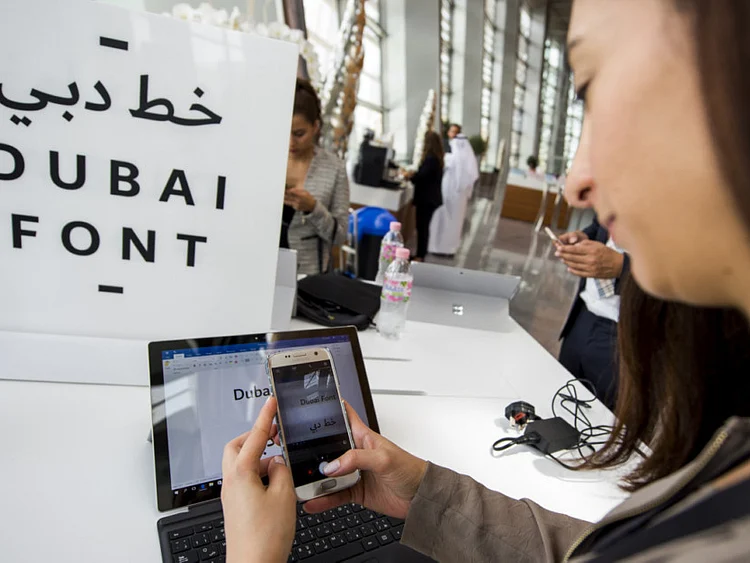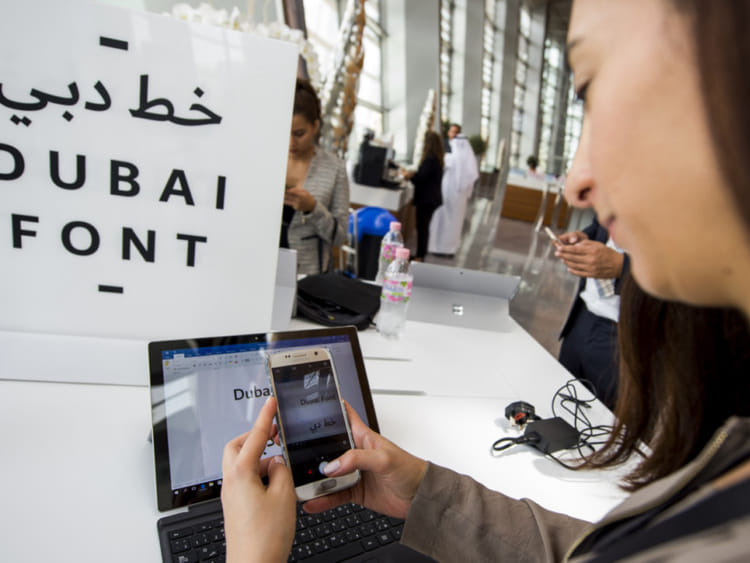
Free-to-use font for 23 languages now available for the whole world to use
Dubai: Tired of Times New Roman and over Arial? Dubai’s government might have the solution.
Called simply ‘Dubai Font,’ the new Arabic and Latin type styles are now freely available for the whole world to use.
With its simple, San Serif Latin typeface, and a modern, stripped-down Arabic script, the font can be used for 23 different languages.
The Dubai Executive Council, chaired by Shaikh Hamdan Bin Mohammad Bin Rashid Al Maktoum, Crown Prince of Dubai, has instructed all the emirate’s government bodies to use the font.
“The launch of the Dubai Font to the world is a very important step for us as part of our continuous efforts to be ranked first in the digital world,” said Shaikh Hamdan.
“We are confident that this new font and its unique specifications will prove popular among other fonts used online and in smart technologies across the world,” said Shaikh Hamdan.
“I have personally overseen all the stages of the development of this font, from the first design sketches to the execution phase.”
The font is the product of a 18-month process by six-member team from Monotype, a US-based firm that has designed custom typefaces for British Airways, Vogue magazine, and Sony, among others.
“It is a mean of expression, it is not the expression itself,” said Nadine Chahine, the font’s chief designer.
With its clean-cut, straightforward look, Chahin’s team took inspiration from Dutch design to create the Latin typeface. “It’s a sans serif with a lot of humanist influence.”
As well as English, some of the available variations for the Latin typeface include Spanish, German, French, and Italian alphabets. The font also has four weights — light, regular, medium, and bold.
Meanwhile, the Arabic typeface is a blend of two styles of Arabic calligraphy — ‘Naskh’ and ‘Muhaqqaq’.
The “high technical quality” of the Arabic font fills an important need for high-quality Arabic fonts, said Ahmad Al Mahri, the Dubai Executive Council’s assistant secretary general.
Global gift
“This is Dubai’s gift to the world,” he added during a Sunday launch ceremony for the font at Dubai’s recently-built Opera House.
According to officials, the font is the first font in Microsoft applications to be both developed by a city and to carry its name.
“The font also supports the technology sector in general by offering a high-quality digital font with unique specifications in different countries of the world without any costs,” said Mahri.
Special characteristics make the font easy to read from a distance — ideal for printing and display on large electronic screens.
“The font also supports the technology sector in general by offering a high-quality digital font with unique specifications in different countries of the world without any costs,” he added.
Here are some of the 23 languages supported by Dubai Font:
Afrikaans, Arabic, Basque, Britannic, Catalan, Danish, Dutch, English, Finnish, French, Gaelic, German, Icelandic, Indonesian, Italian, Norwegian, Farsi, Portuguese, Sami, Spanish, Swahili, Swedish and Urdu.
The Dubai Font, according to Dubai’s Media Office, mirrors the city’s qualities and promotes its global standing, and includes 23 languages.